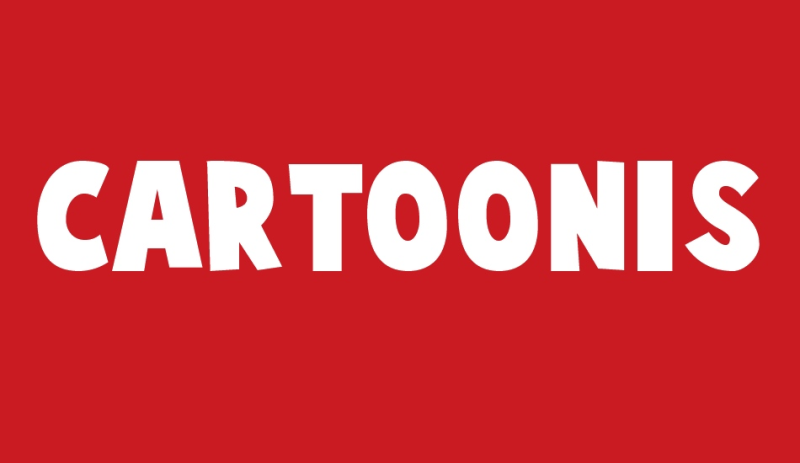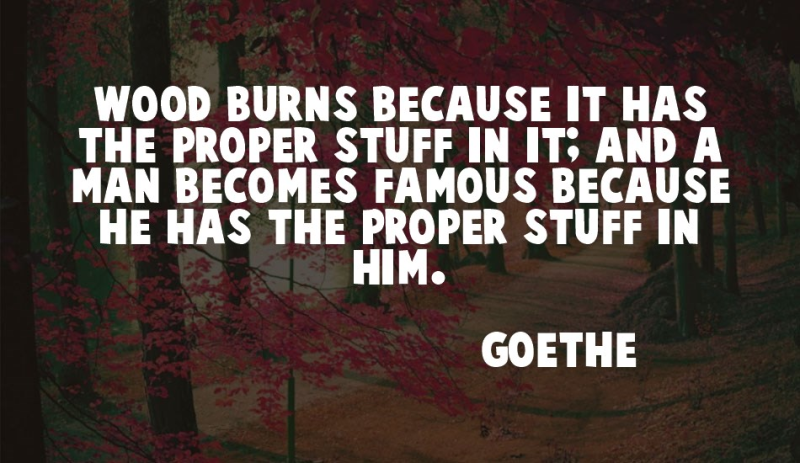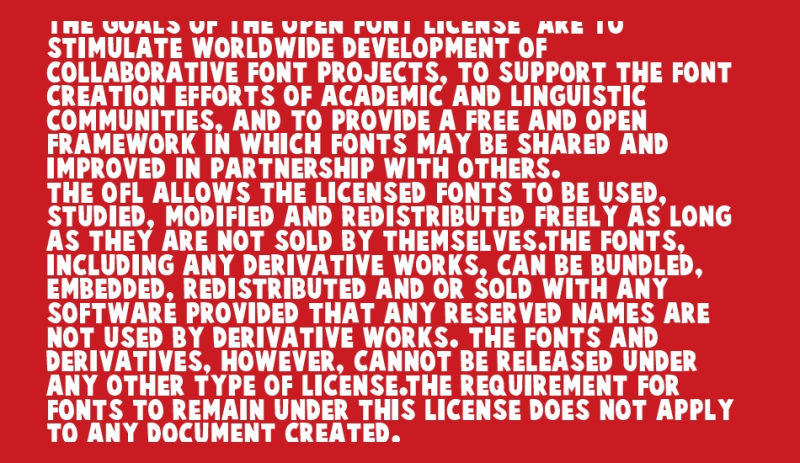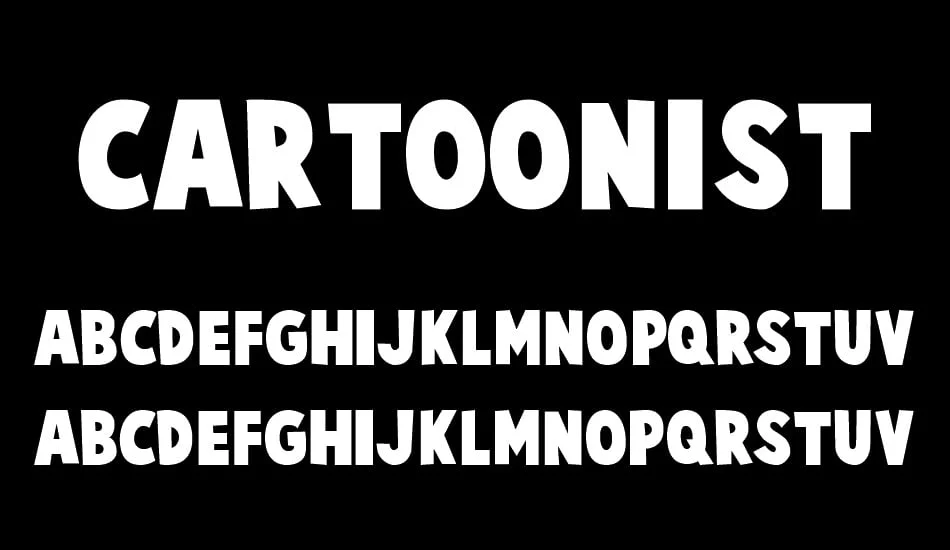
Cartoonist Font
Cartoonist Font is a fancy cartoon font featuring an elegant texture. A US-based designer George Edward Purdy took the charge of designing it and releasing it via Purdy Design in 1998.
All of its texture has featured a bold look along with a cool texture. It seems like a cartoon texture because irregularity has been found in letters. It has straightforward lines but the outline are not follow straight patterns.
Cartoonist Font is a Decorative Fonts font that brings a professional and versatile look to your projects. Cartoonist Font is a fancy cartoon font featuring an elegant texture.